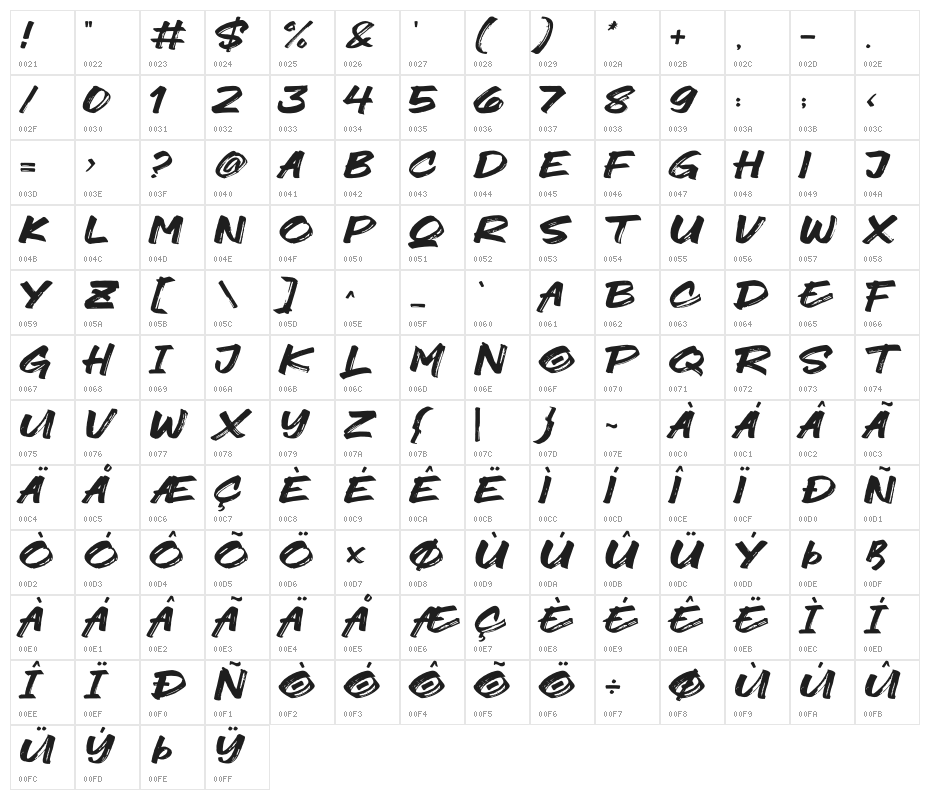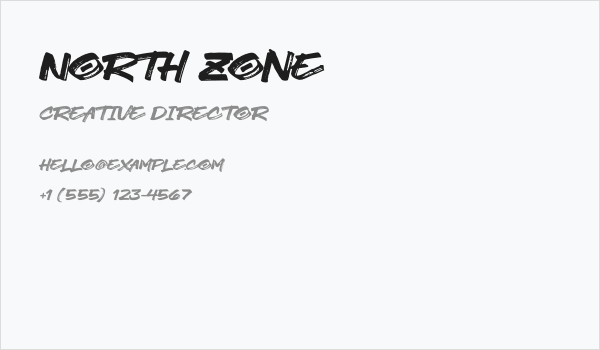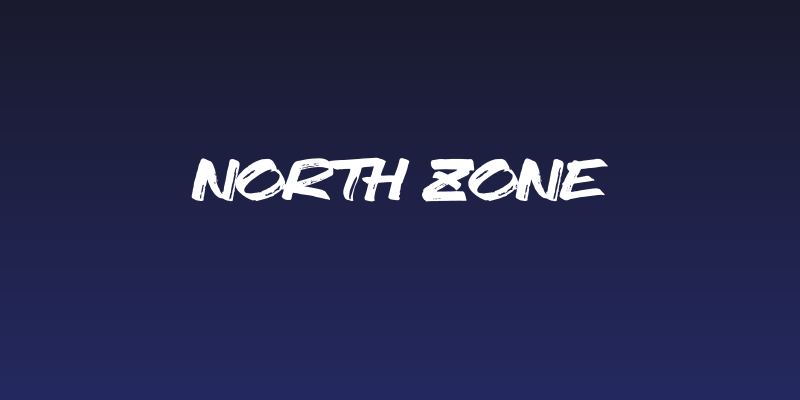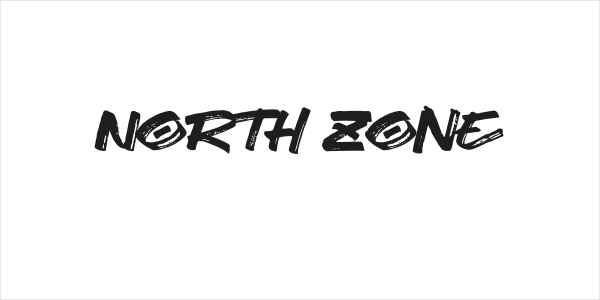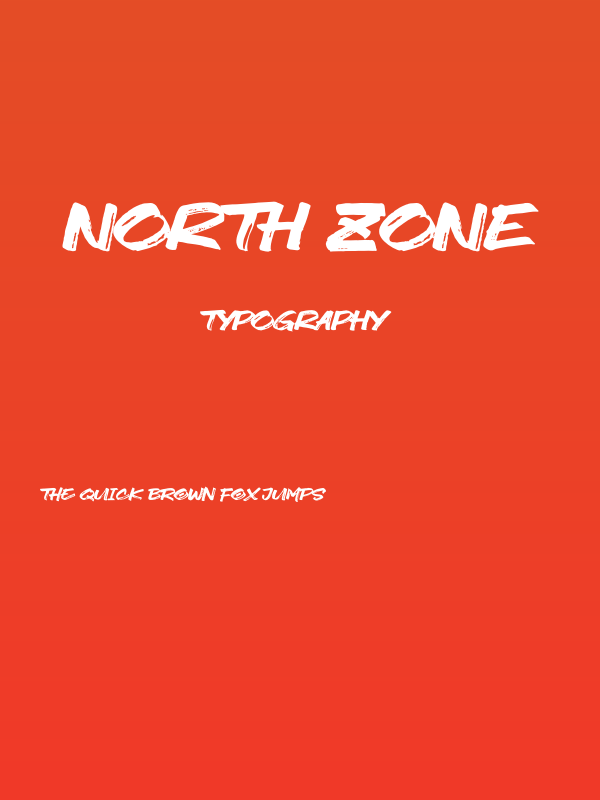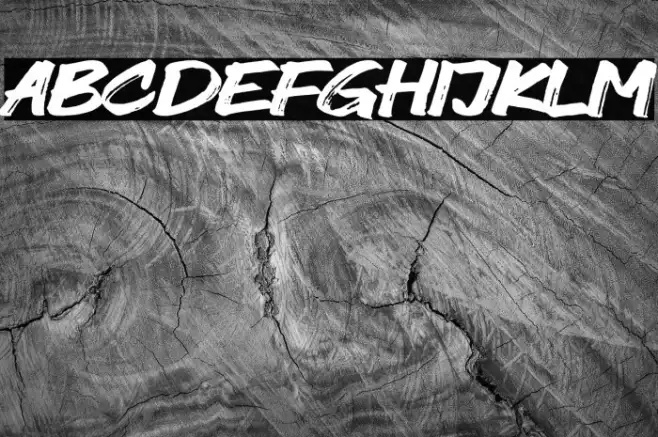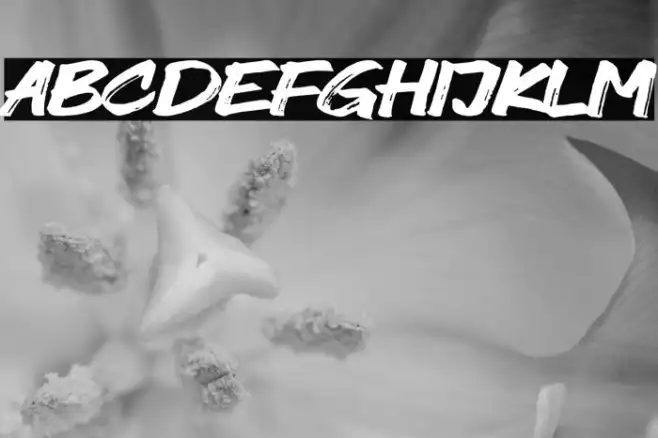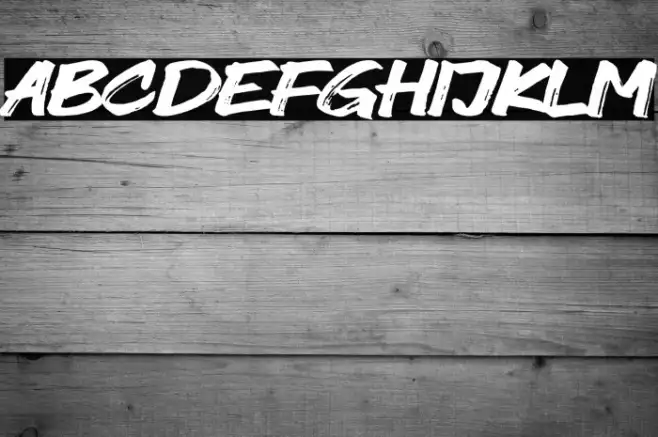
North Zone Font
North Zone Description
This font exhibits a bold, energetic style with a brush-like texture that gives it a dynamic and expressive appearance. The strokes are thick and uneven, creating a sense of movement and spontaneity. The uppercase and lowercase letters maintain a consistent style, with the uppercase being slightly more pronounced. Numbers and special characters follow the same bold, textured aesthetic, ensuring uniformity across all elements. This font's unique, hand-drawn look makes it stand out, adding a creative flair to any design.